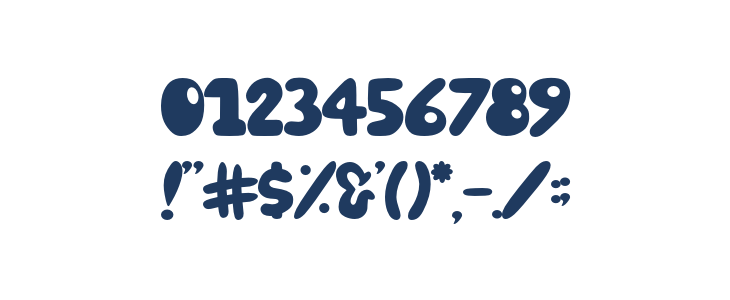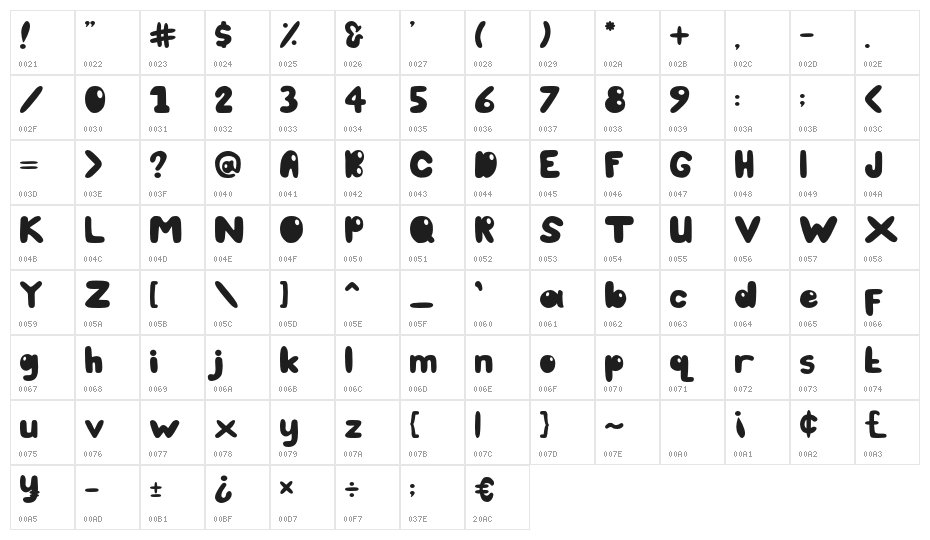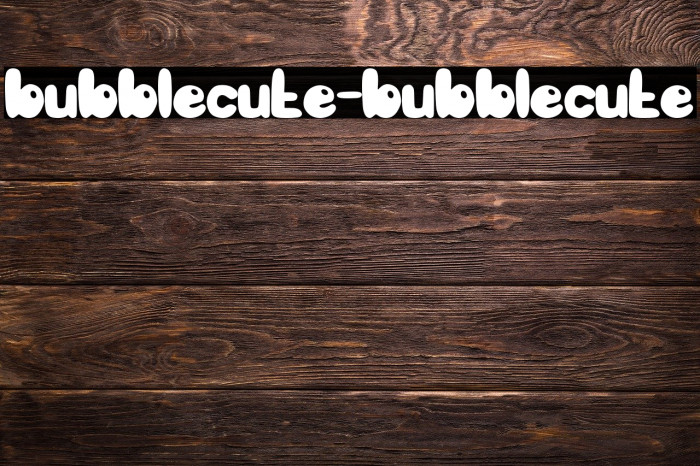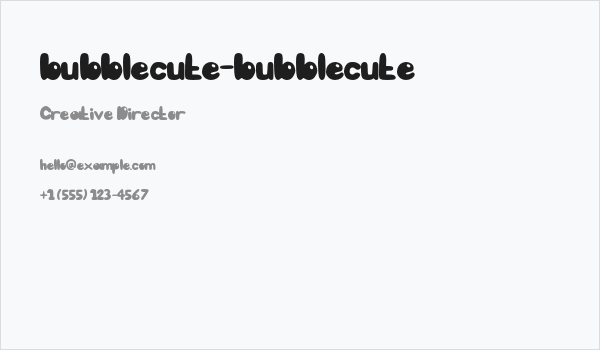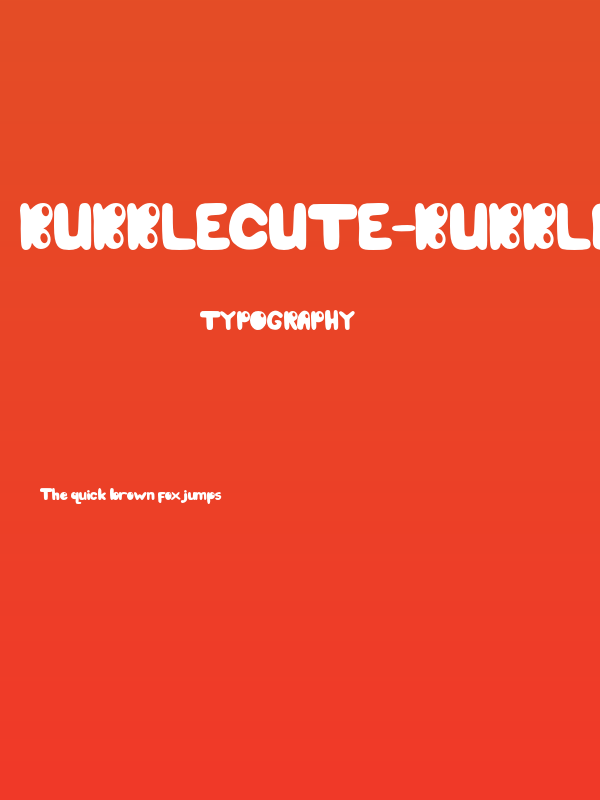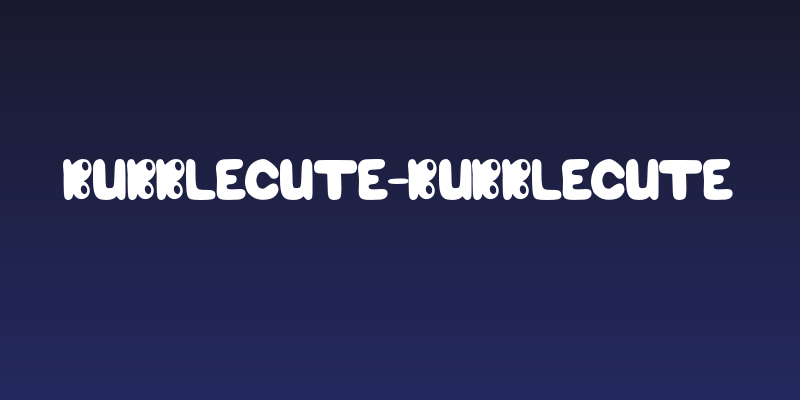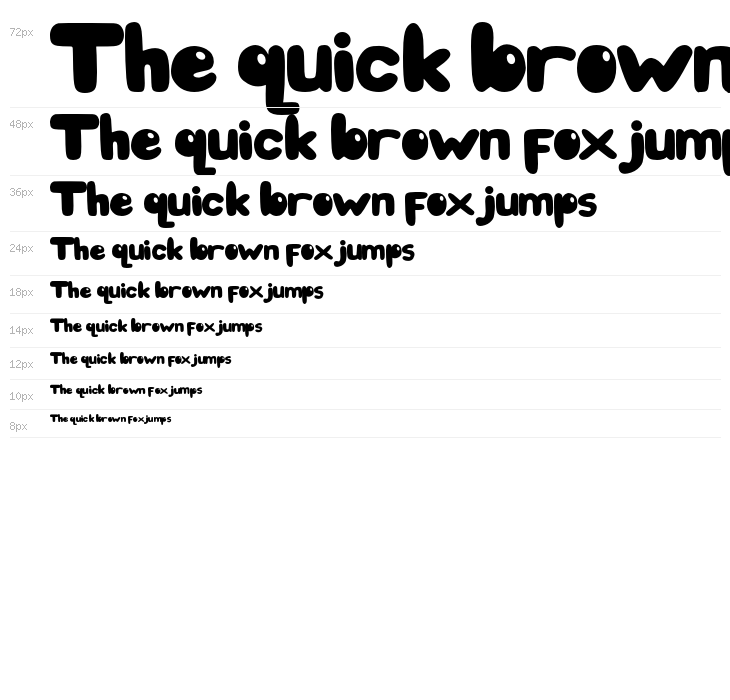
bubblecute-bubblecute Font
bubblecute-bubblecute Description
This playful and whimsical font features bold, rounded characters that exude a sense of fun and creativity. The letters are thick and bubbly, with a consistent weight that gives them a cohesive appearance. The uppercase and lowercase letters maintain a uniform style, while the numbers and special characters complement the overall design. The font's rounded edges and smooth curves make it approachable and friendly, ideal for projects that require a lighthearted and cheerful touch. Its unique style stands out, making it perfect for eye-catching headlines or logos.